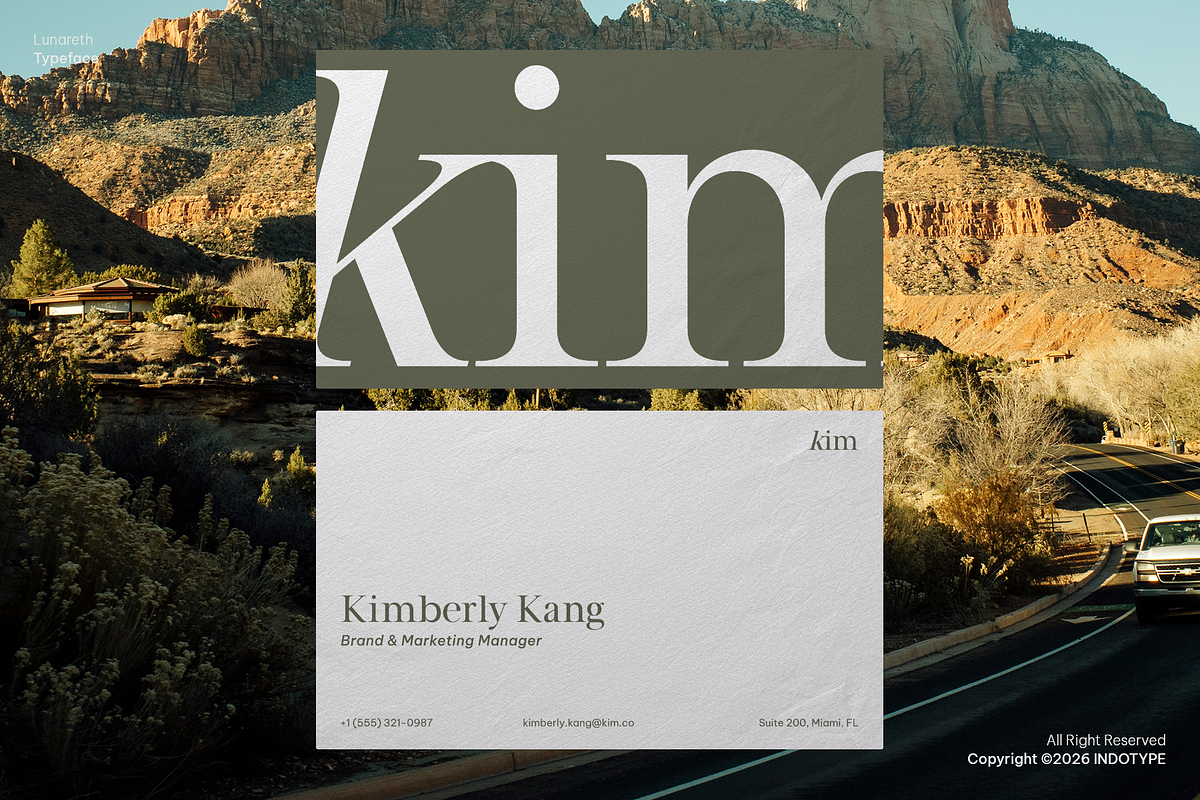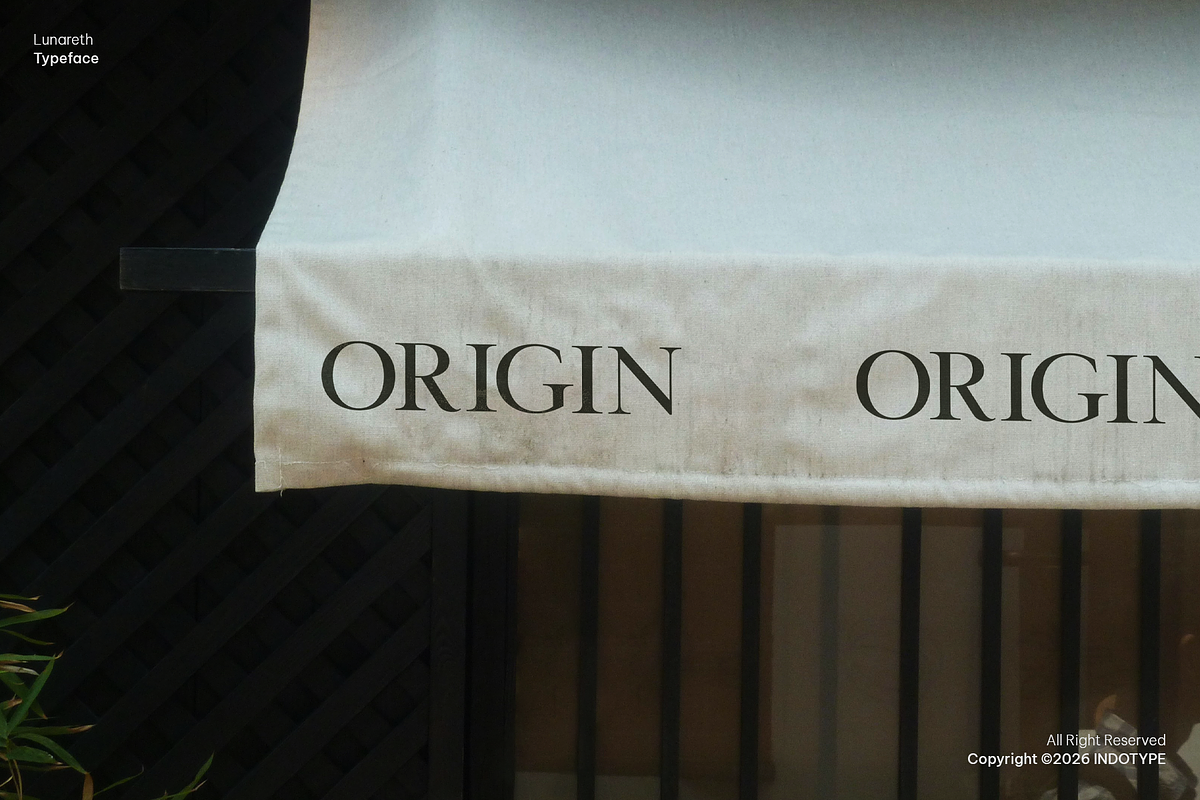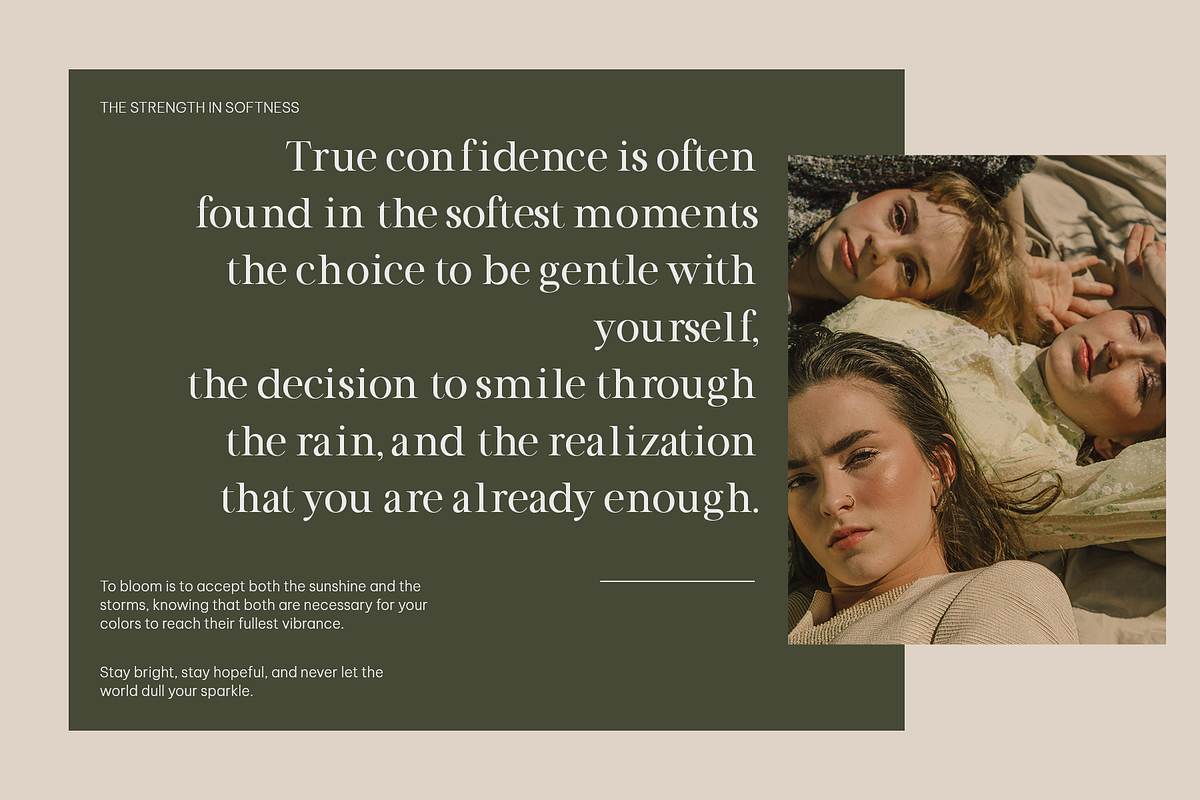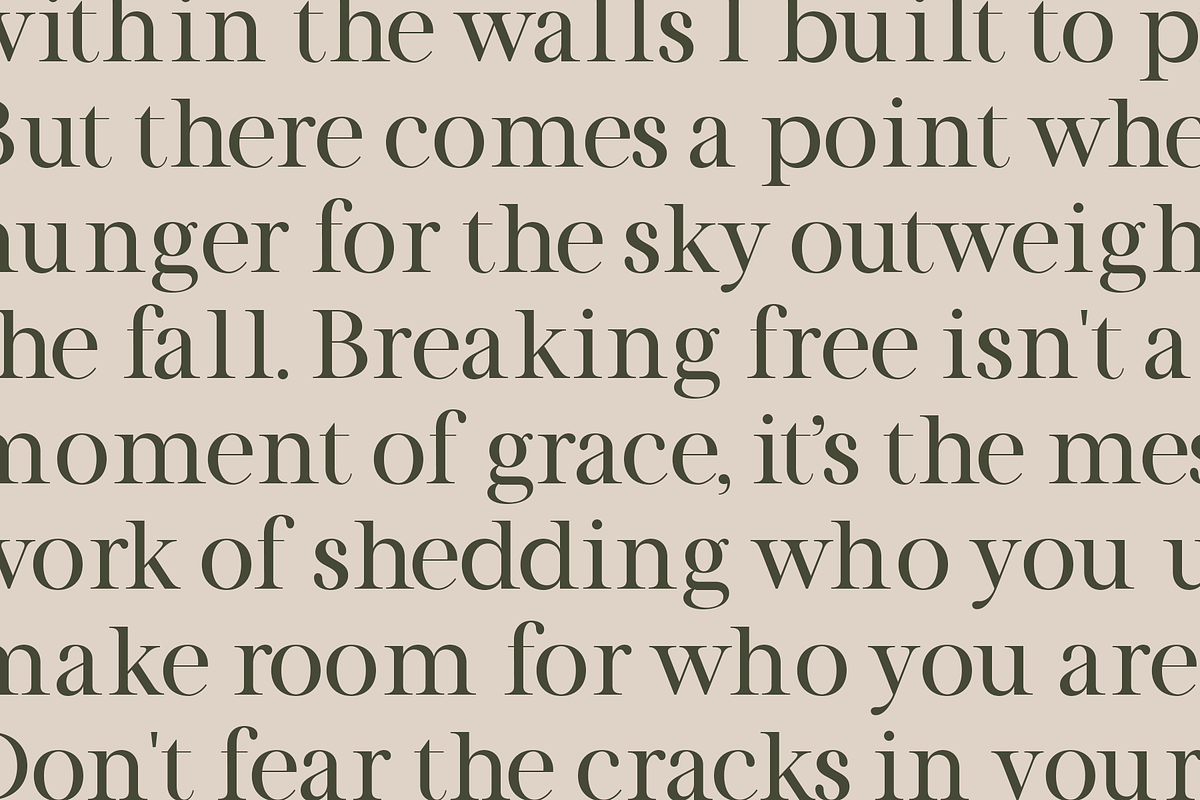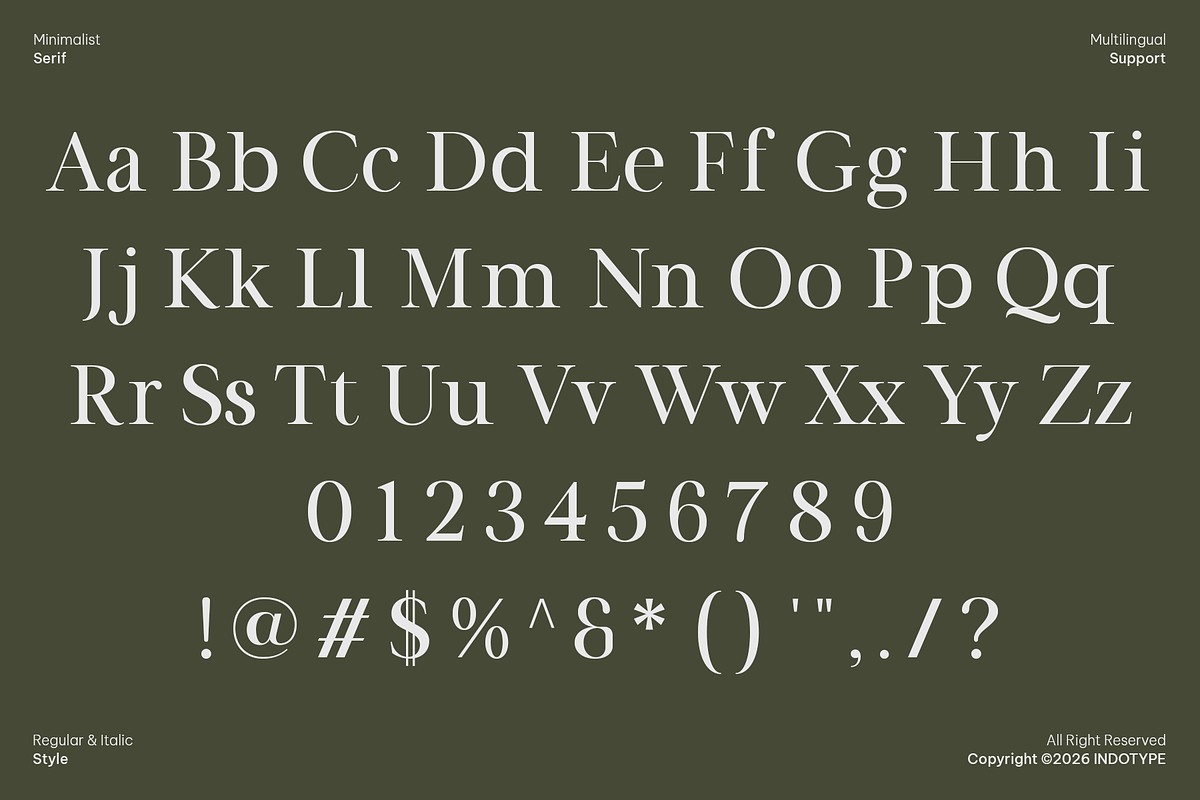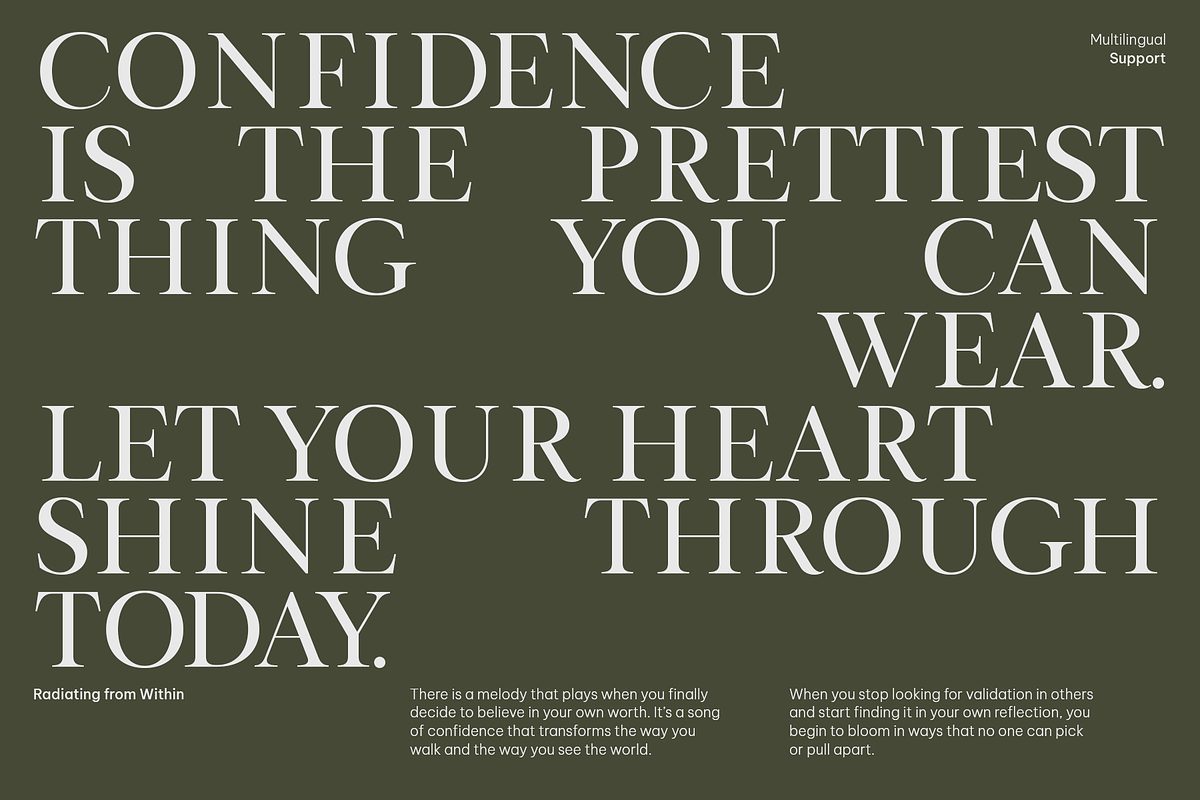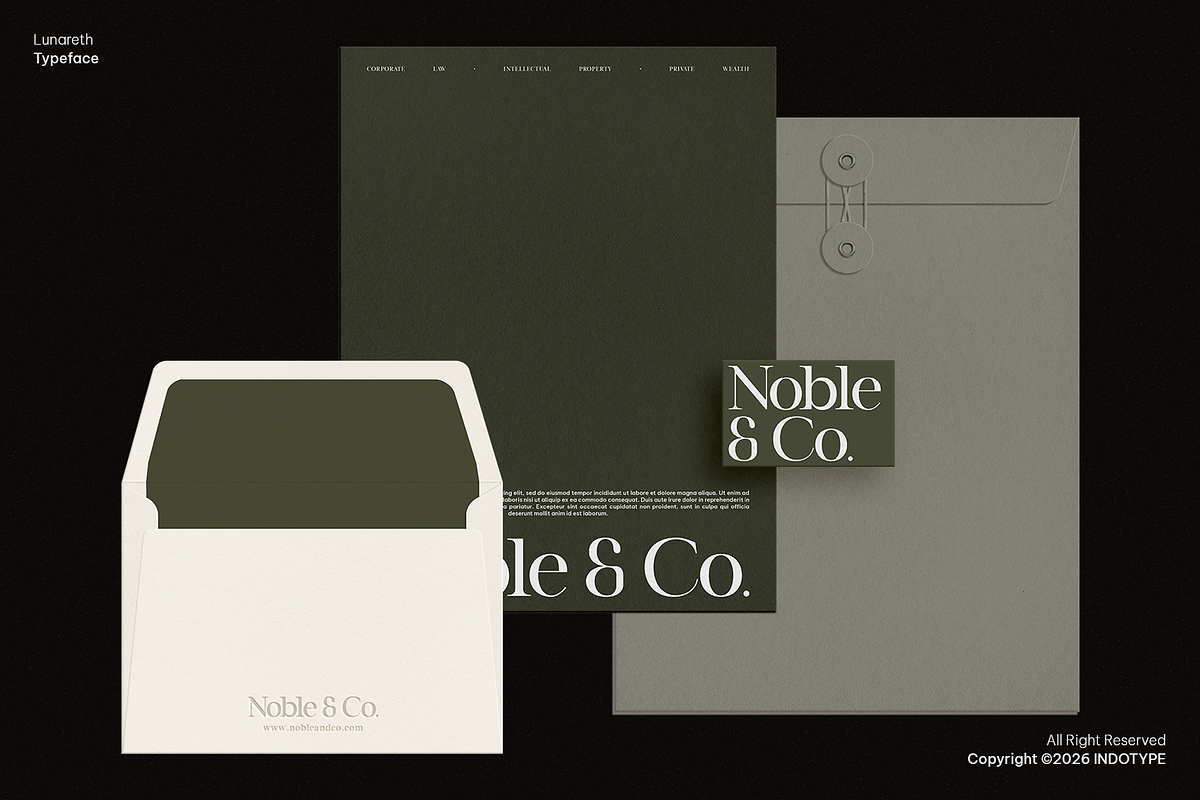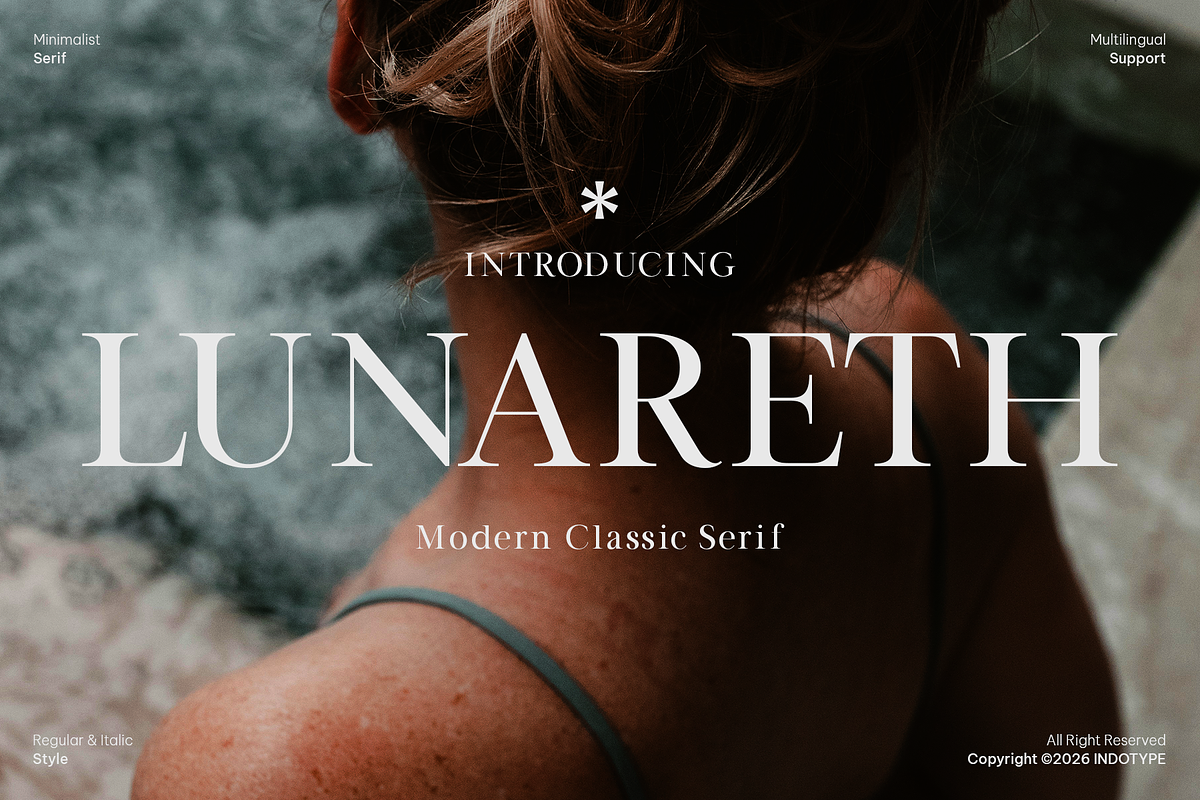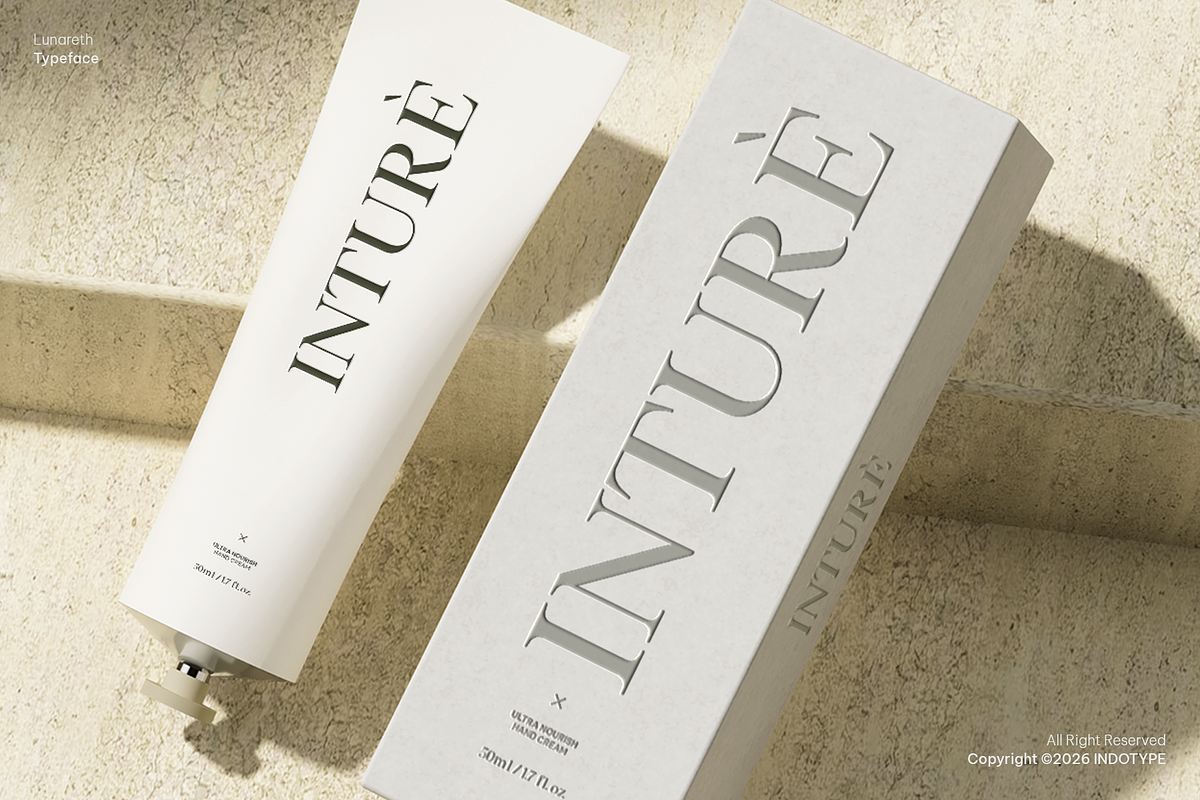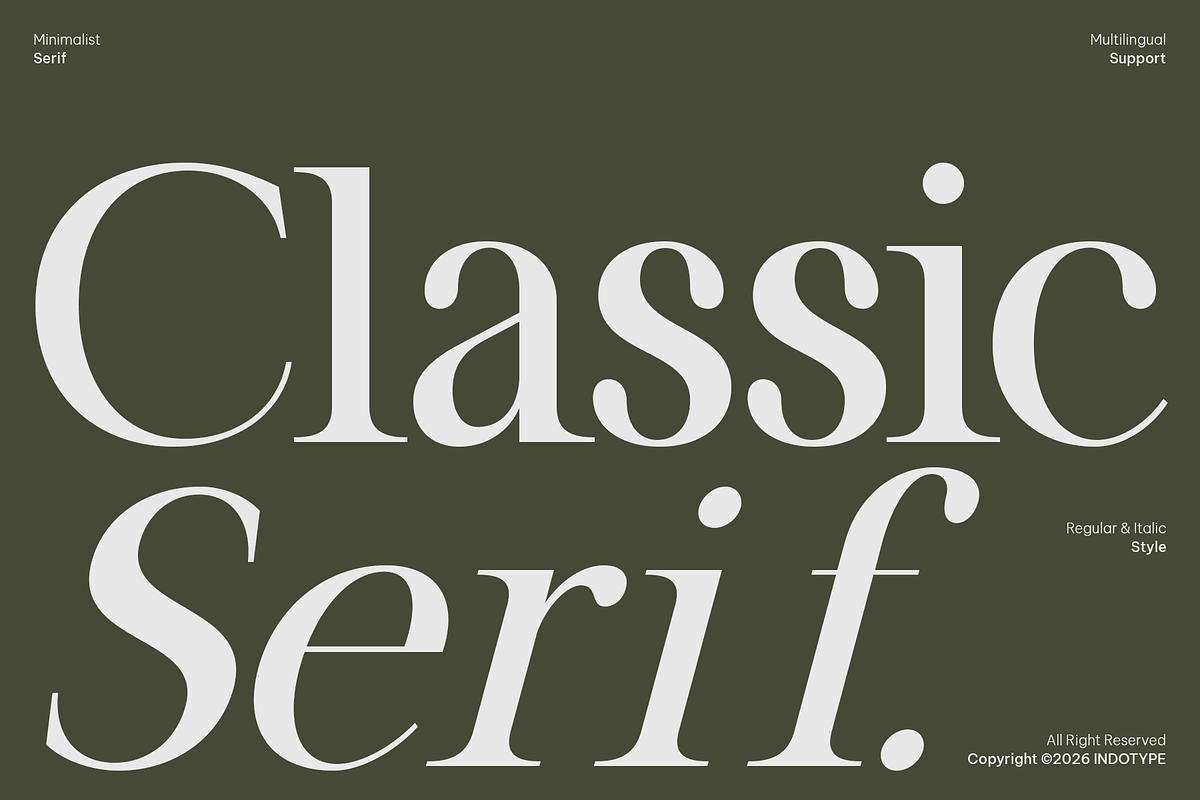
Lunareth - Minimalist Classic Serif
Lunareth is a refined serif typeface that reinterprets classic elegance through a lens of minimalist modernity. It strikes a perfect balance between timeless serif structure and contemporary clarity, featuring clean lines, subtle stroke contrast, and impeccable proportions. This delicate fusion results in a font that is both authoritative and accessible, carrying the dignity of traditional print with the freshness of modern design. Designed for sophisticated versatility, Lunareth comes in both Regular and Italic styles and includes extensive multilingual support, making it a truly global tool for premium communication. It is the ideal choice for luxury branding, high-end editorial design, corporate identity for discerning brands, and any project where quiet confidence and refined readability are paramount.
- Ideal for: Luxury Branding & Logotypes, High-End Editorial & Magazines, Corporate Identity for Finance/Law, Book Publishing, Cosmetic & Fashion Packaging, Sophisticated Web Design.
- Classification: Serif, Modern, Transitional, Display.
- Attributes: Elegant, Refined, Minimalist, Authoritative, Timeless, Sophisticated, Balanced.